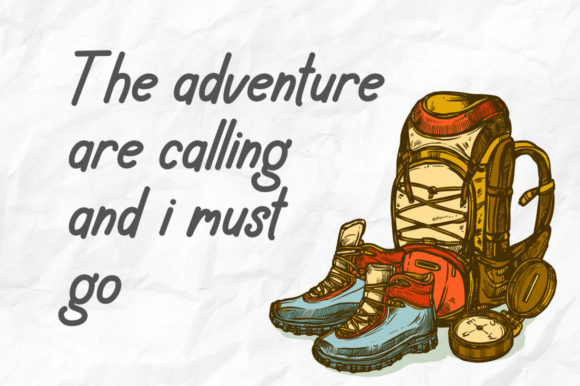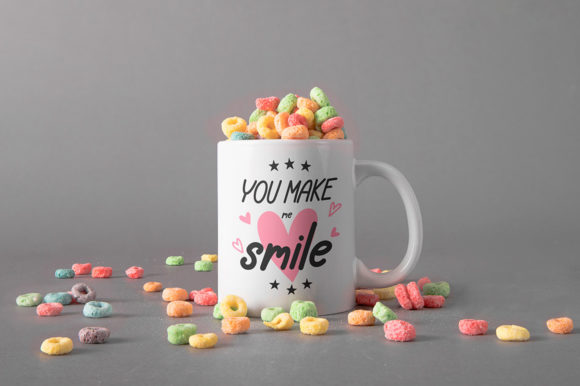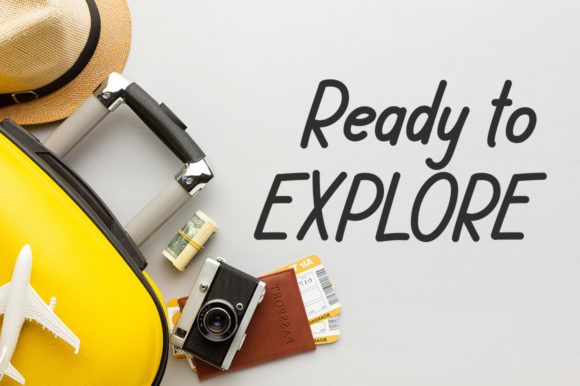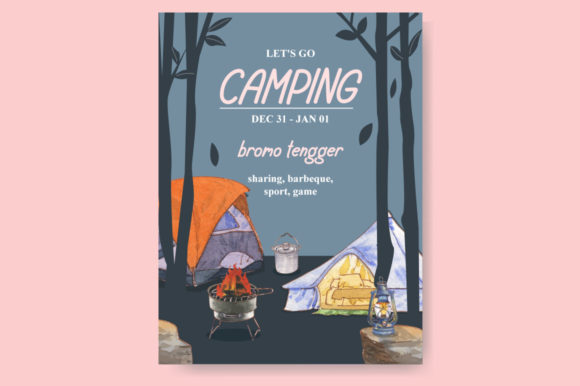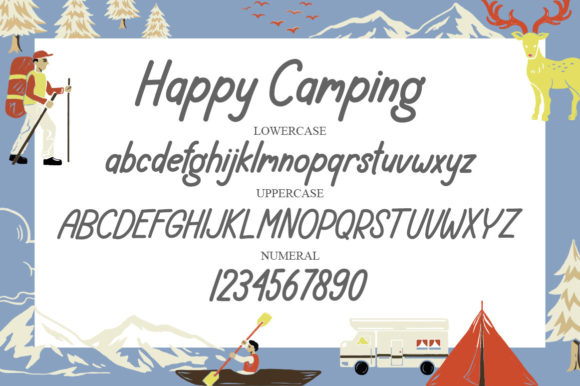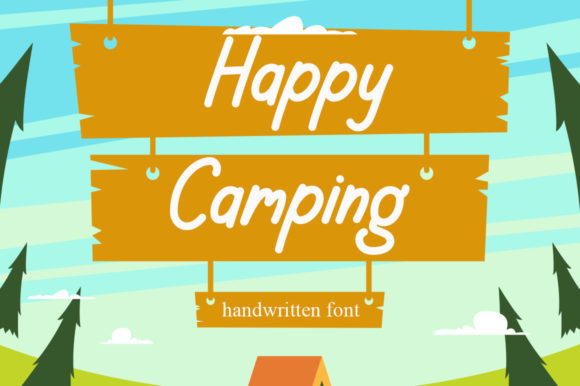
Happy Camping Font: The Perfect Addition to Your Design Toolbox
Are you a designer, crafter, or DIY enthusiast looking for a font that can add a personal touch to your projects? Look no further than the Happy Camping Font! This adorable, handwritten font is perfect for creating chalkboard quotes, teaching materials, and other designs that require a friendly, approachable feel.
What is Happy Camping Font?
Happy Camping Font is a cute and simple-lettered handwritten font that is designed to mimic the look of authentic chalkboard writing. Its unique, hand-crafted style gives it a realistic feel that is sure to add a personal touch to your designs. Whether you’re creating signs, posters, or other materials, Happy Camping Font is the perfect choice.
Key Features of Happy Camping Font
• Cute and Simple Lettering: Happy Camping Font features a simple, easy-to-read lettering style that is perfect for creating clear and concise messages.
• Handwritten Style: The font’s handwritten style gives it a personal, authentic feel that is sure to connect with your audience.
• Chalkboard-Inspired: The font’s chalkboard-inspired look makes it perfect for creating designs that resemble traditional chalkboard writing.
• Easy to Read: Despite its handwritten style, Happy Camping Font is easy to read, making it perfect for creating teaching materials, signs, and other designs where clarity is key.
Uses for Happy Camping Font
Happy Camping Font is a versatile font that can be used in a variety of design projects, including:
• Chalkboard Quotes: Create beautiful, eye-catching chalkboard quotes that are perfect for social media, blogs, or websites.
• Teaching Materials: Use Happy Camping Font to create engaging, easy-to-read teaching materials, such as worksheets, handouts, and presentations.
• Signs and Posters: Create eye-catching signs and posters that are perfect for advertising events, promoting products, or simply adding a personal touch to your business or home.
• Crafting and DIY Projects: Happy Camping Font is perfect for crafters and DIY enthusiasts who want to add a personal touch to their projects, such as scrapbooking, card-making, and more.
Benefits of Using Happy Camping Font
There are many benefits to using Happy Camping Font in your design projects, including:
• Unique and Eye-Catching: Happy Camping Font is a unique and eye-catching font that is sure to stand out from the crowd.
• Versatile: Happy Camping Font can be used in a variety of design projects, from chalkboard quotes to teaching materials and more.
Happy Camping Font is a cute and simple-lettered handwritten font that is perfect for designers, crafters, and DIY enthusiasts. Its authentic look and easy-to-read style make it perfect for creating chalkboard quotes, teaching materials, signs, and other designs that require a friendly, approachable feel. With its versatility, ease of use, and unique style, Happy Camping Font is sure to become a valuable addition to your design toolbox.